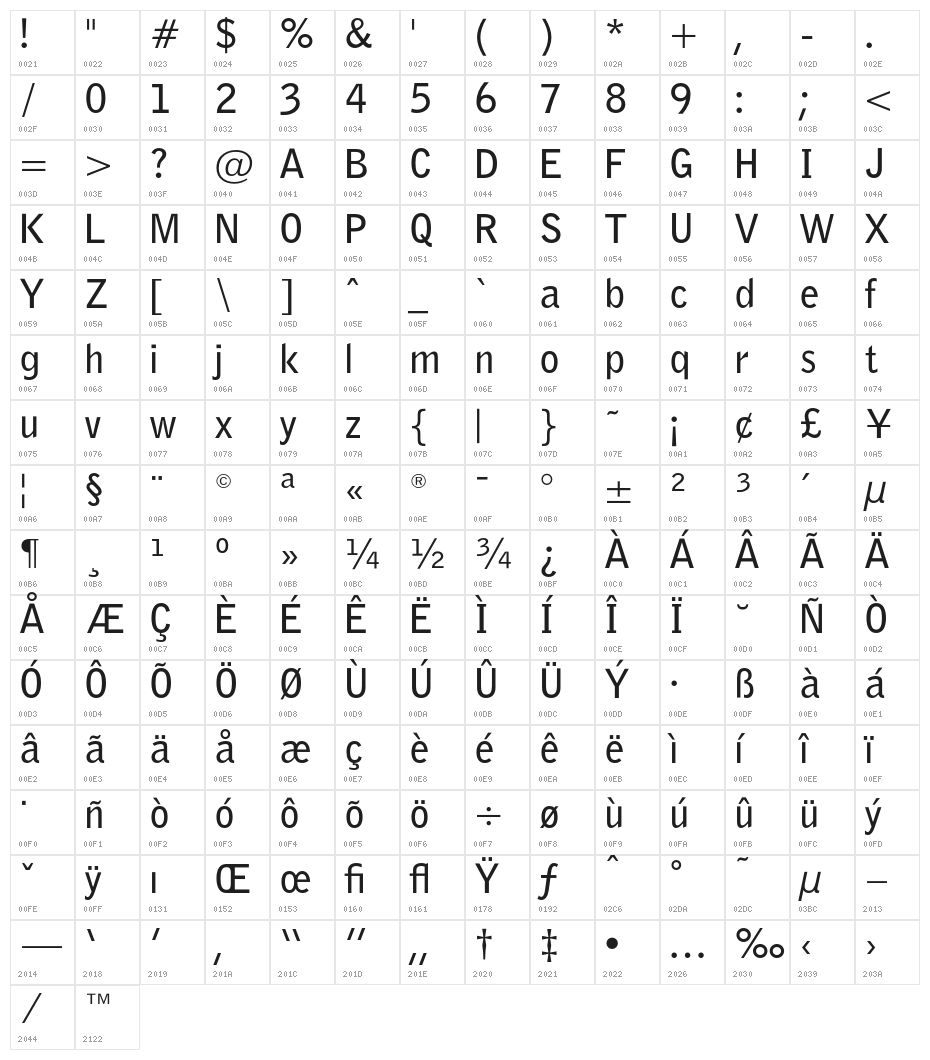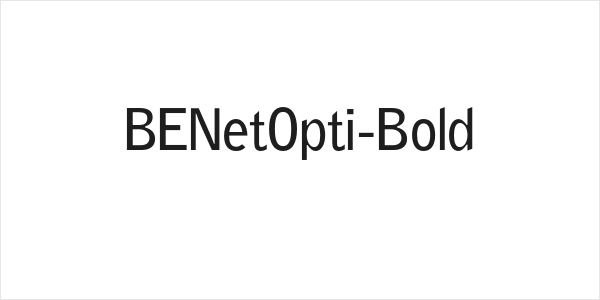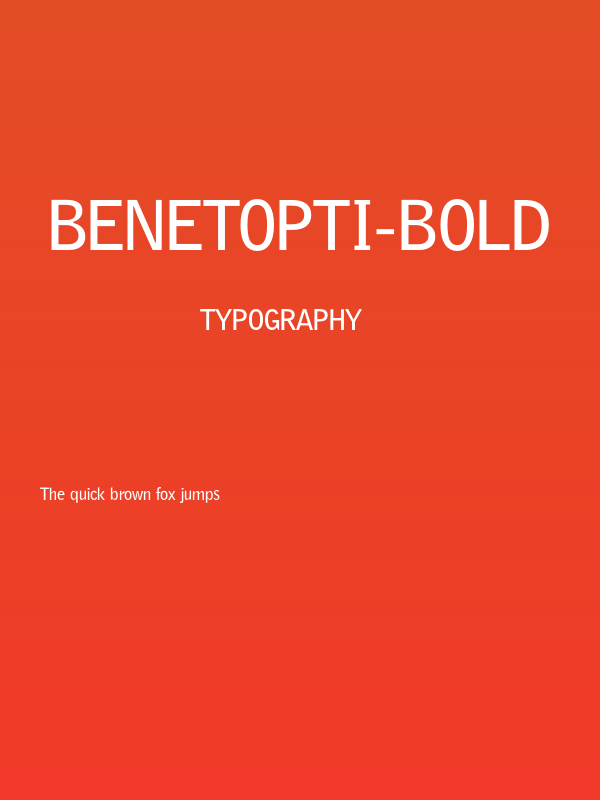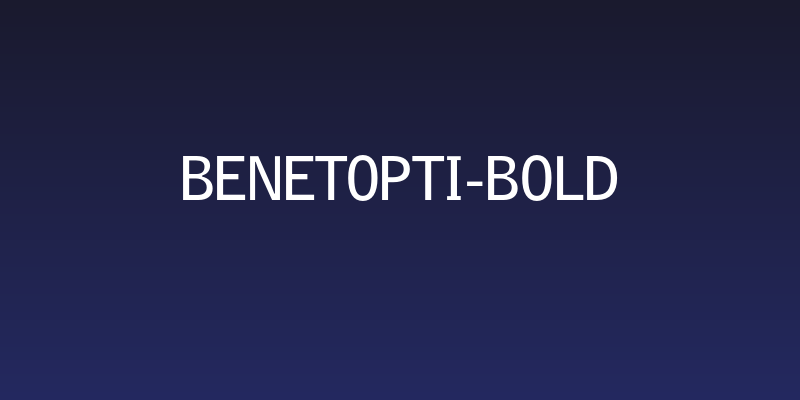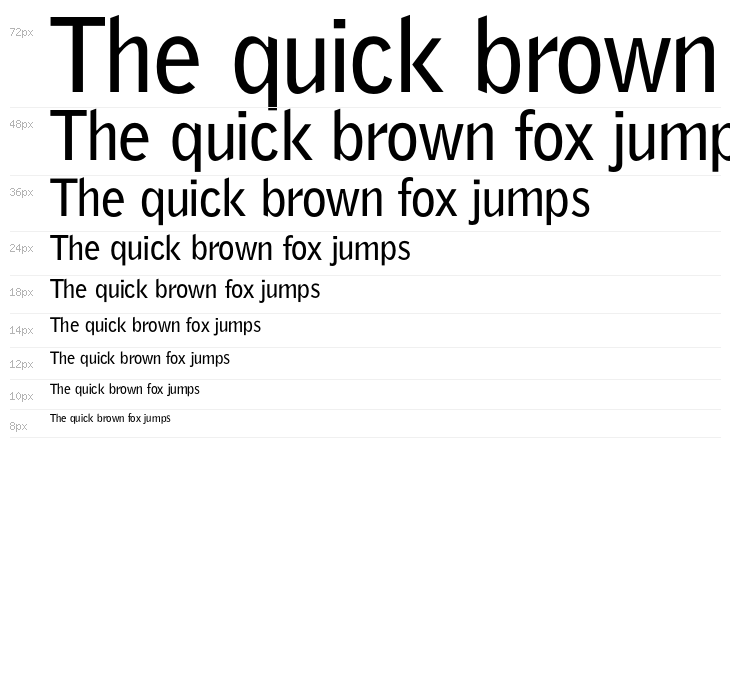
BENetOpti-Bold Font
BENetOpti-Bold Description
This font exhibits a clean and modern sans-serif style, characterized by its bold and uniform stroke width. The uppercase letters are tall and slightly condensed, providing a strong and assertive appearance. The lowercase letters maintain a consistent height and spacing, ensuring readability and balance. The numerals are clear and straightforward, matching the overall geometric design. Special characters are well-integrated, maintaining the font's cohesive look. This font is versatile, suitable for both digital and print media, offering a professional and contemporary feel.